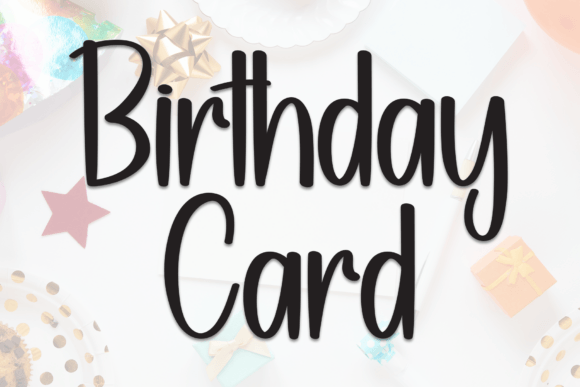
Give Your Designs a Personal Touch with Birthday Card Font
Have you ever been stuck brainstorming ideas for a special project, only to have a burst of creativity strike when you least expect it? Maybe it was a stroll through a quaint neighborhood, a conversation with a friend, or simply flipping through a magazine that sparked the perfect idea. For designers, moments like these are what make the job so rewarding. And sometimes, all it takes is the right font to bring a project to life.
That’s where the Birthday Card Font comes in – a sweet and friendly handwritten font that’s sure to add a personal touch to any design. Whether you’re creating a birthday invitation, a special greeting card, or simply a fun social media post, this font is the perfect choice. Its natural and unique style makes it incredibly versatile, allowing designers to push their creativity to new heights.
Birthday Card Font Key Features
- Font Family: A custom-designed font specifically for creating birthday cards and other celebratory content.
- Unique Characteristics: Features a playful, cursive script with decorative flourishes, making it ideal for creating whimsical and festive designs.
Birthday Card Font Review
Overall, I think Birthday Card Font is a sweet and charming script font that can add a personal touch to any birthday card or celebration. ✨ It’s perfect for those who want to convey a sense of warmth and love on a special occasion.
Here are some things that work well about this font:
- Soft and flowing curves that evoke a sense of whimsy and playfulness.
- Excellent for creating a romantic and intimate atmosphere.
- Wide range of ligatures and alternate characters that can add a unique touch to your design.
- Supports a variety of languages, making it a great choice for international celebrations.
However, there are some limitations to keep in mind:
- May not be the best choice for formal or corporate designs, as it can come across as too casual.
- Some characters may not display correctly in certain font sizes or resolutions.
- Needs a good pair with a serif font to balance out the design.
Overall, Birthday Card Font is a great choice for designers who want to add a touch of personality and warmth to their birthday card designs. While it may have some limitations, its unique charm and characteristics make it a standout font in any celebration.
The Birthday Card Font is ideal for designing birthday cards, invitations, and other celebratory materials. You can use it to create eye-catching headings, titles, and body text. It’s also suitable for use in social media graphics, posters, and other promotional materials.
To get the most out of the Birthday Card Font, experiment with different font sizes, colors, and styles. Use it in combination with other fonts to create visually appealing typography. Also, consider using the font in conjunction with graphics and images to add visual interest to your designs.